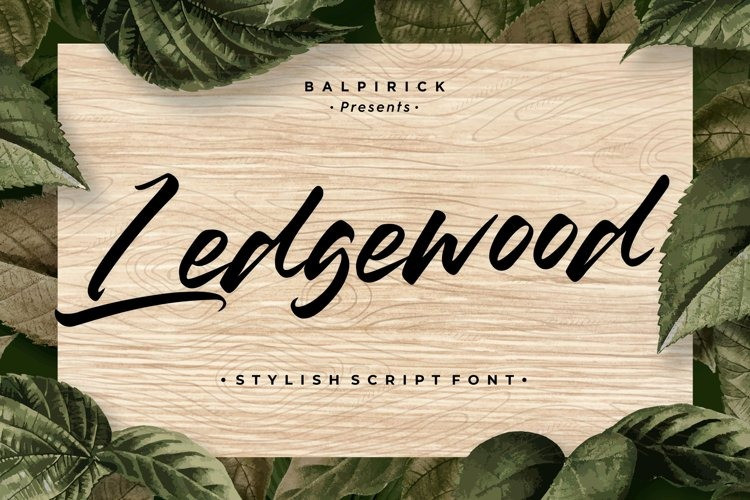
Ledgewood Script Font
Ledgewood is a Stylish Script Font.
Ledgewood is perfect for product packaging, branding project, megazine, social media, wedding, or just used to express words above the background.